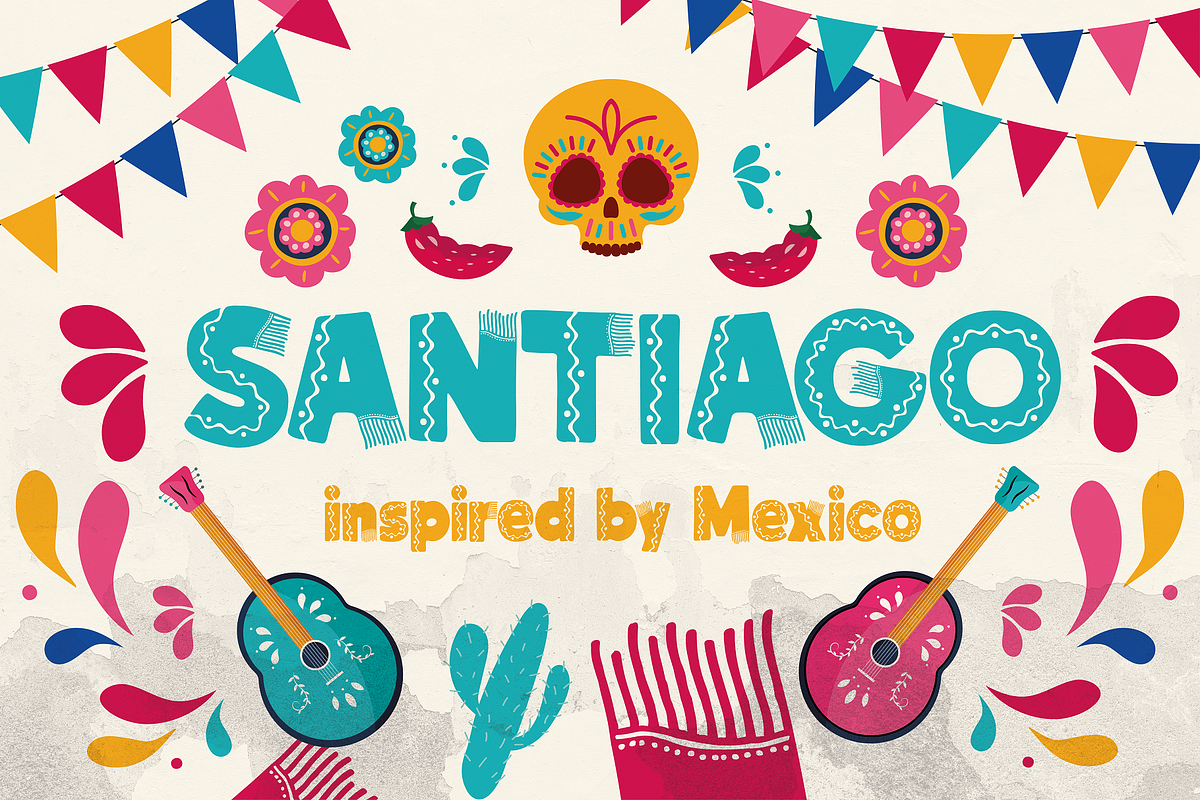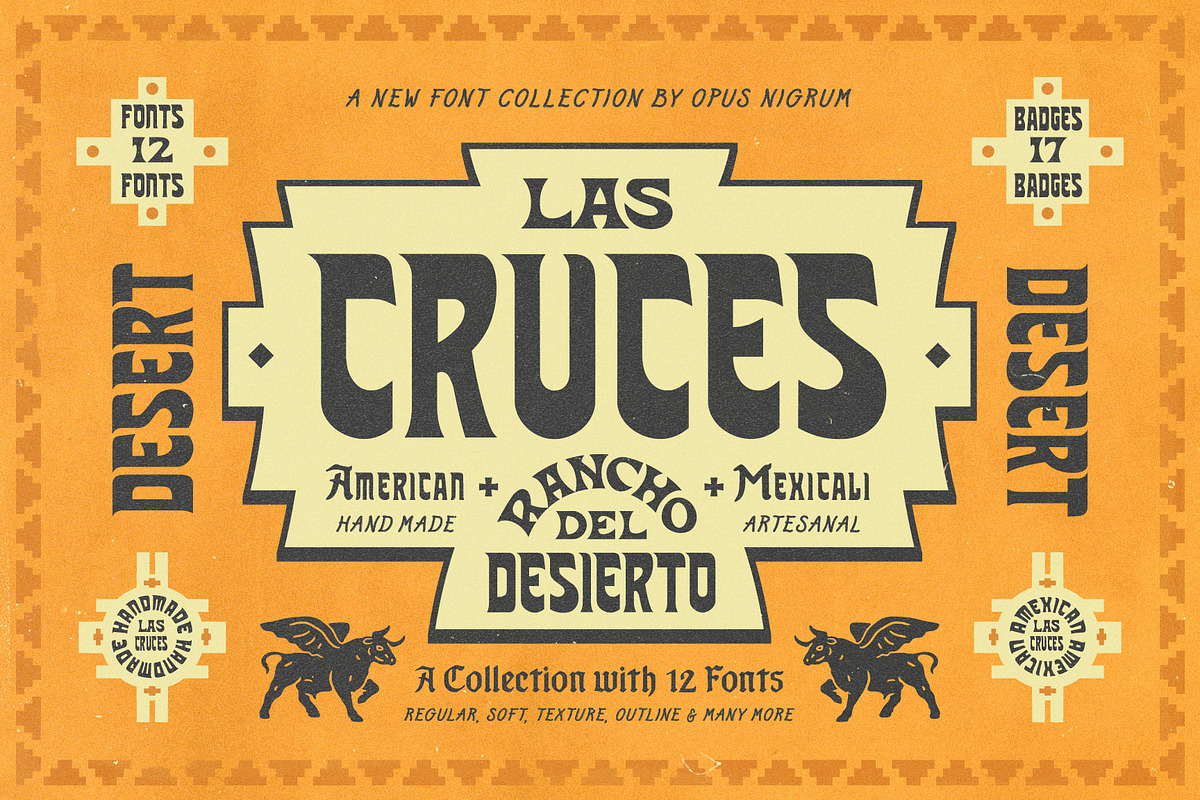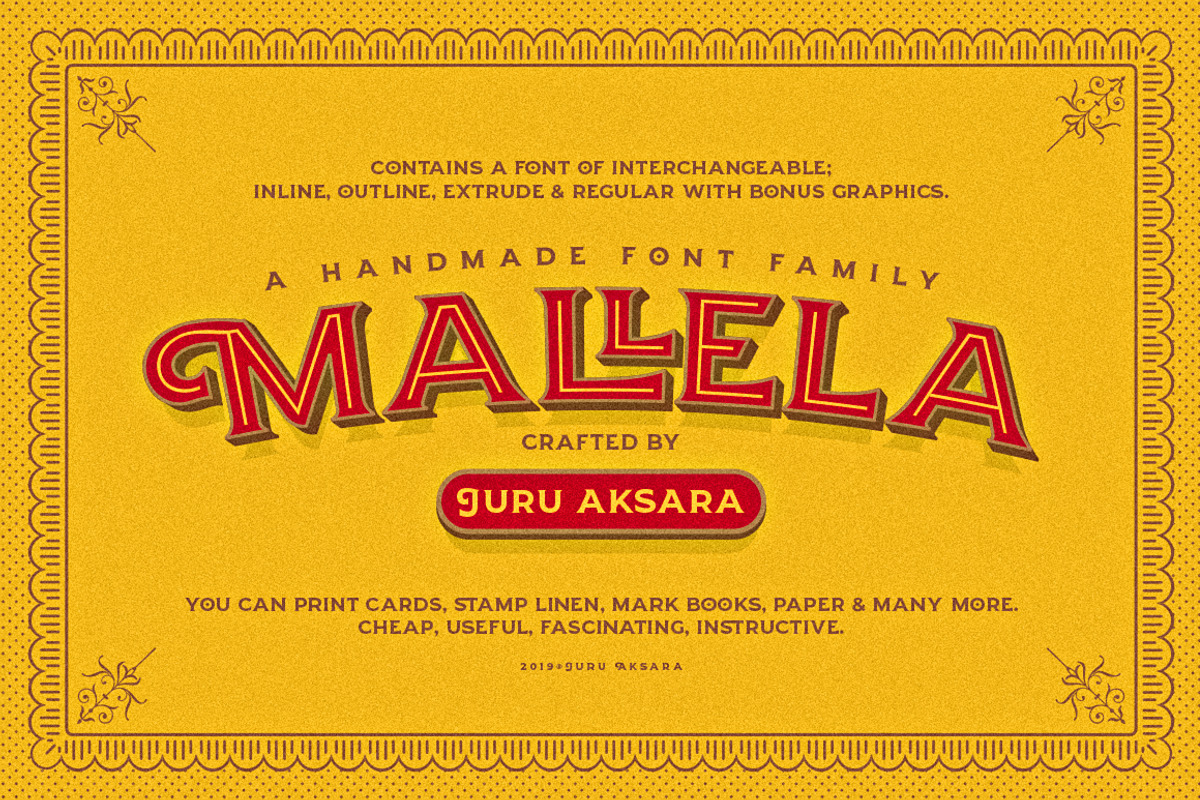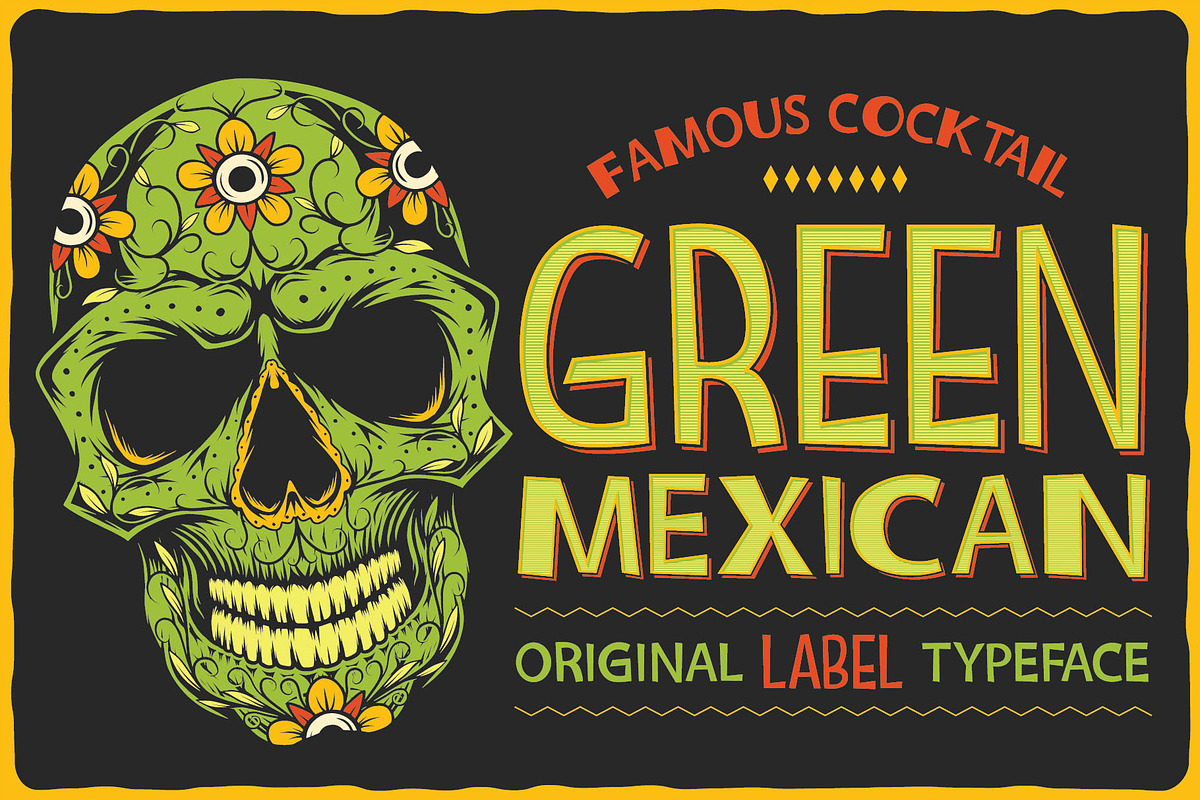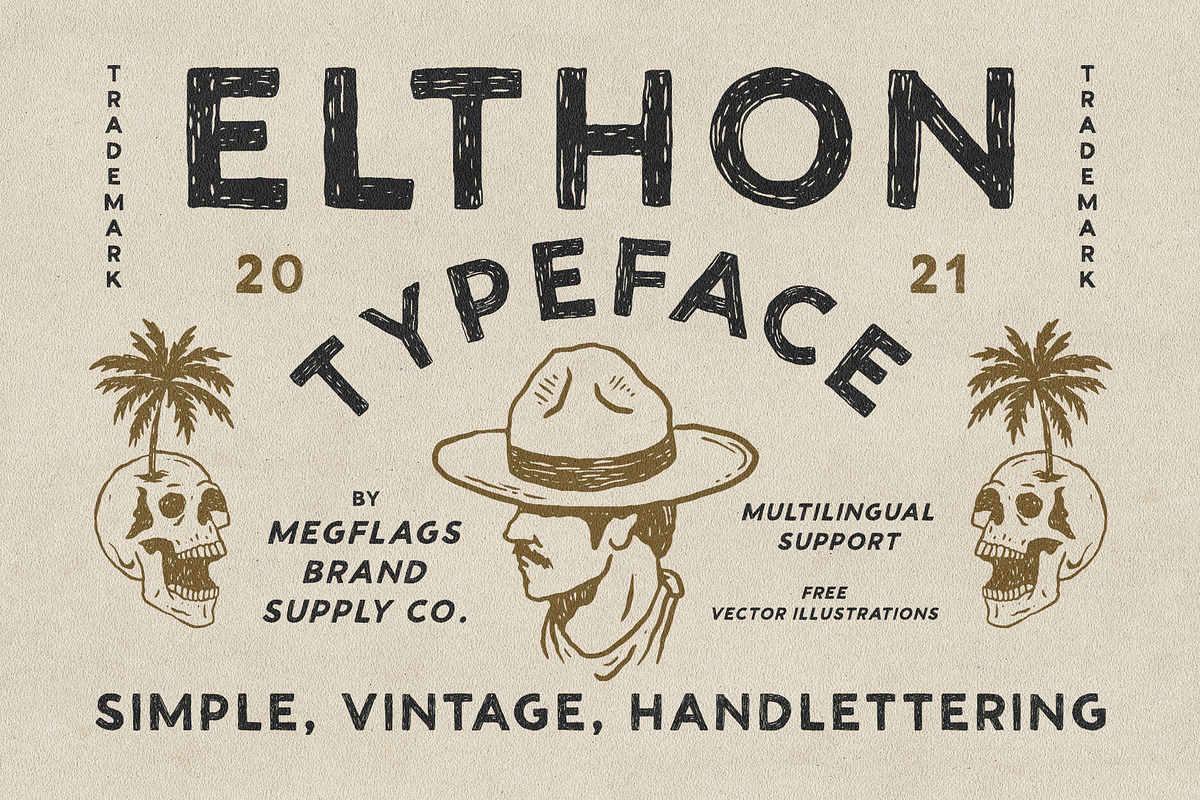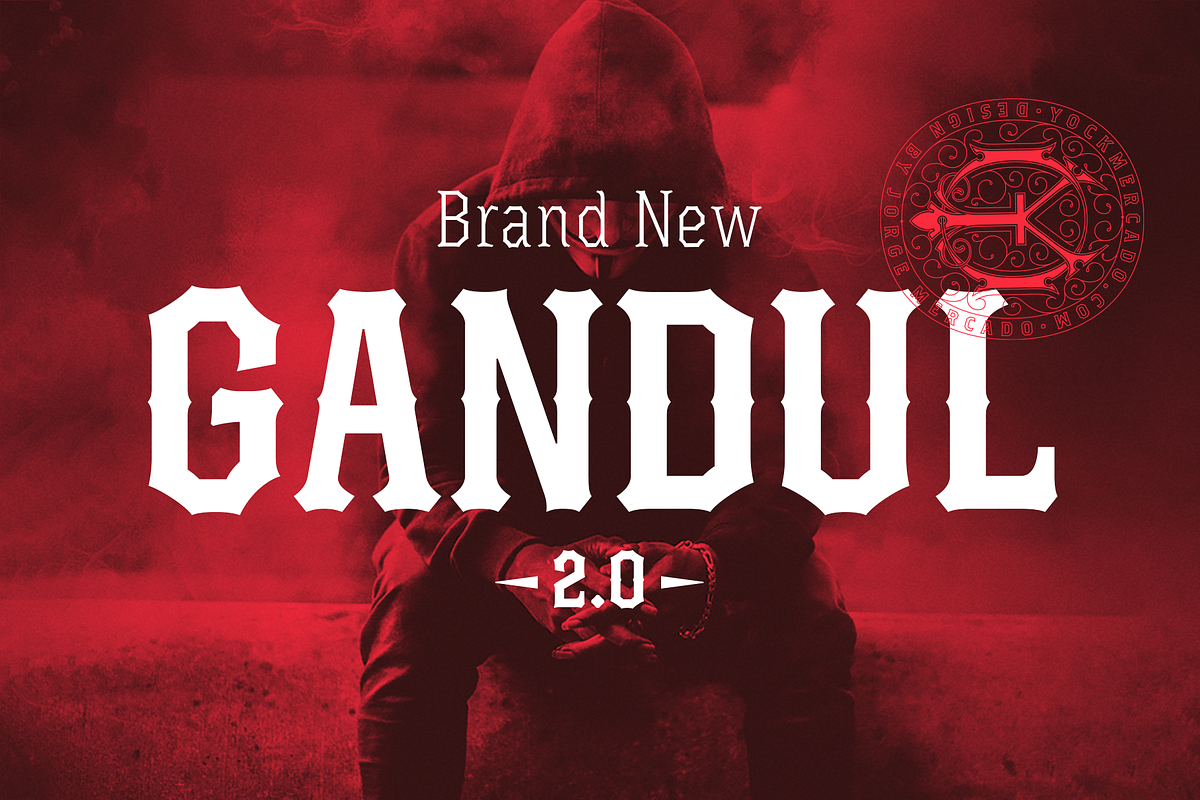
Spice Up Your Designs: Discover 9+ Must-Try Best Mexican Fonts
Are you searching for the best Mexican font to add flair to your design projects? Look no further! Our curated collection offers a diverse range of fonts inspired by the rich cultural heritage of Mexico. Whether you’re designing for branding, signage, or digital content, finding the perfect font is key to conveying the essence of your message.
Explore our top picks below and discover fonts that capture the vibrancy and spirit of Mexico. From bold and playful to elegant and timeless, our selection has something to suit every design aesthetic.
Are you searching for the best Mexican font to add flair to your design projects?
Look no further! Our curated collection offers a diverse range of fonts inspired by the rich cultural heritage of Mexico. From traditional serifs to modern sans-serifs, our selection encompasses fonts that evoke the essence of Mexico’s art, history, and traditions.
What makes a font the best choice for your Mexican-inspired designs?
The best Mexican fonts capture the vibrancy and spirit of Mexico, with characteristics like boldness, playfulness, elegance, and timelessness. Whether you’re designing a logo for a Mexican restaurant, creating promotional materials for a cultural event, or crafting artwork inspired by Mexican folk art, the right font can elevate your design and convey the unique essence of Mexico.
Which characteristics are most important to you?
When selecting a font for Mexican-inspired designs, consider factors such as cultural authenticity, readability, versatility, and visual impact. Look for fonts that strike a balance between honoring Mexican heritage and meeting the practical requirements of your design projects. Whether you prefer ornate calligraphy or clean, modern typography, there’s a Mexican font out there to suit your needs.
Explore our top picks below and discover fonts that embody the essence of Mexico.
1. Mallela Best Mexican Typeface
Mallela Best Mexican Typeface
Embark on a journey to the tropical paradise of Tropica Imaginaria with Mallela, the epitome of Mexican design excellence. Inspired by the ever-evolving trends of the design world, Mallela pays homage to the vintage themes that continue to captivate imaginations. In a world where “vintage” has been redefined, Mallela stands as a beacon of sophistication and visionary design, honoring the legacy of its predecessors. With Mallela, experience the glory of art meeting industry and design meeting business, where every creation is a masterpiece that transcends visual boundaries.
Join us as we celebrate the true essence of vintage with Mallela, a testament to the enduring spirit of Mexican creativity.
2. Gandul 2.0 Best Mexican Fonts
Gandul 2.0 Best Mexican Fonts
Experience the evolution of Gandul with its 2.0 release, unveiled on May 31, 2021. Drawing inspiration from vintage American typography and the laid-back “gandul” lifestyle, this font embodies a unique fusion of heritage and contemporary flair. With a pack comprising 10 OTF and 10 WOFF files, Gandul 2.0 promises versatility and style for your design projects.
3. Green Mexican Typeface
Green Mexican Typeface
Step into the world of vintage aesthetics with Green Mexican, a captivating label font designed to evoke nostalgia. With four distinct styles and a plethora of additional characters, this font is perfect for retro-inspired designs, including posters, t-shirts, labels, and logos. Enjoy multilingual support and access to OTF, TTF, WOFF, and WOFF2 font files for seamless integration into your projects. Plus, elevate your designs with isolated illustrations included in EPS10, high-resolution JPG, and PNG formats. Please note that mockups are not included, but you can easily create stunning effects by layering text with the provided instructions.
4. Luchador Mexican Font
Luchador Mexican Font
Introducing Luchador, a captivating serif display typeface by Great Scott. With its robust features and layered ornaments, Luchador channels the vigor, personality, and flair of Mexican wrestling into your design projects.
This package includes two dynamic styles: Luchador Regular and Luchador Oblique, complemented by the decorative bonus, Luchador Lines. With each style offering over 300 glyphs and broad language support, Luchador ensures versatility across various creative contexts.
As an added treat, we’ve included Gunnar Regular from the esteemed GSCO font family, enhancing your design possibilities. Don’t miss the chance to infuse your designs with the vibrant spirit of Luchador Mexican Font.